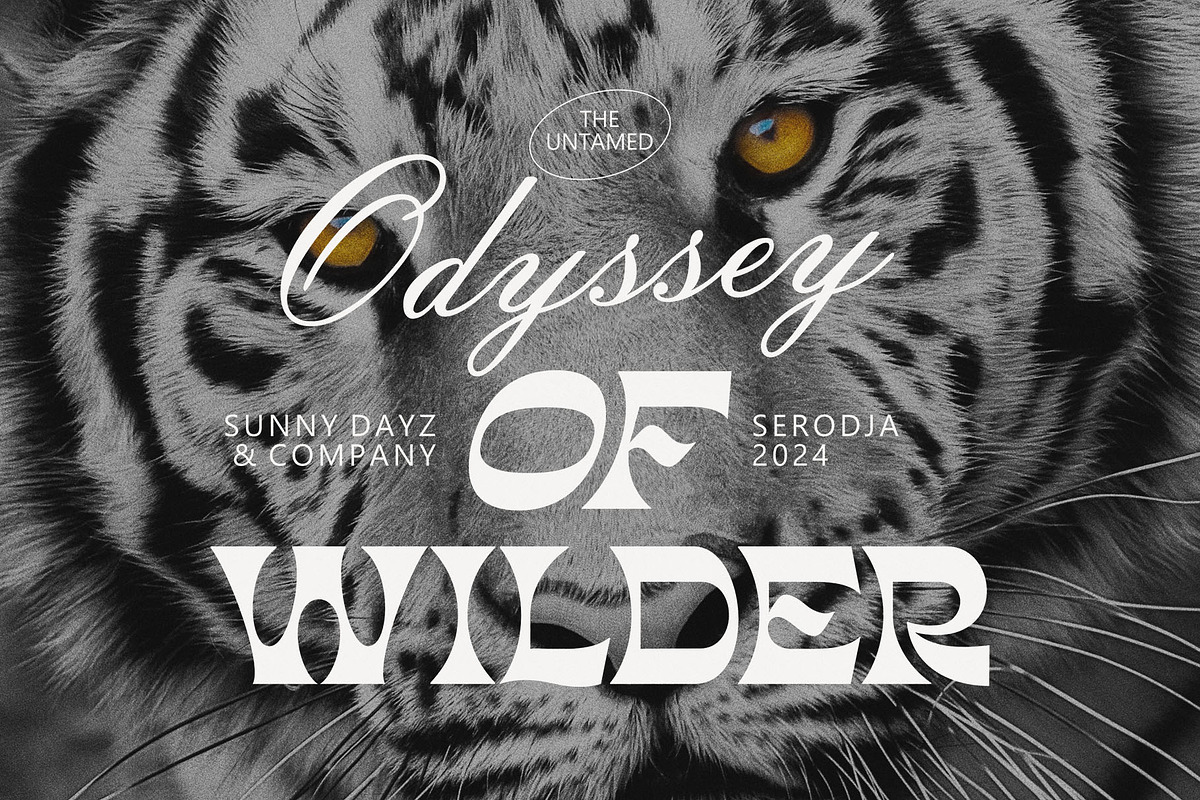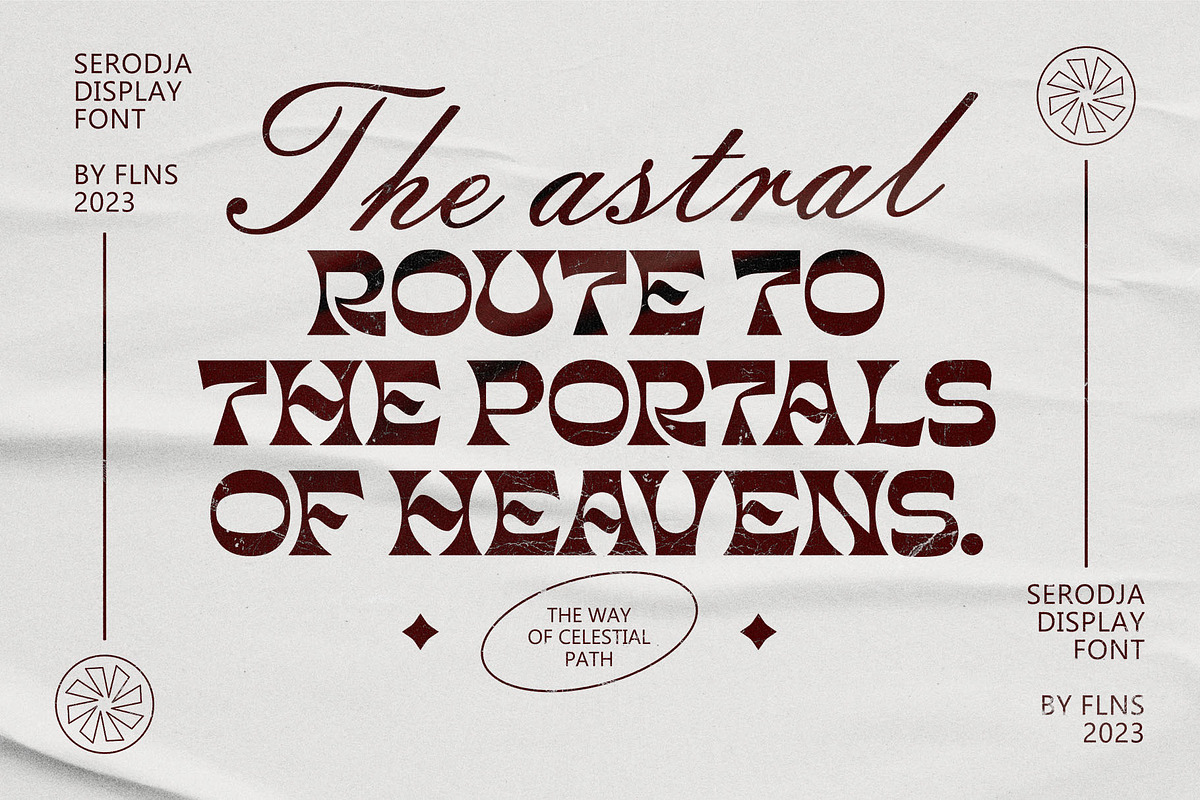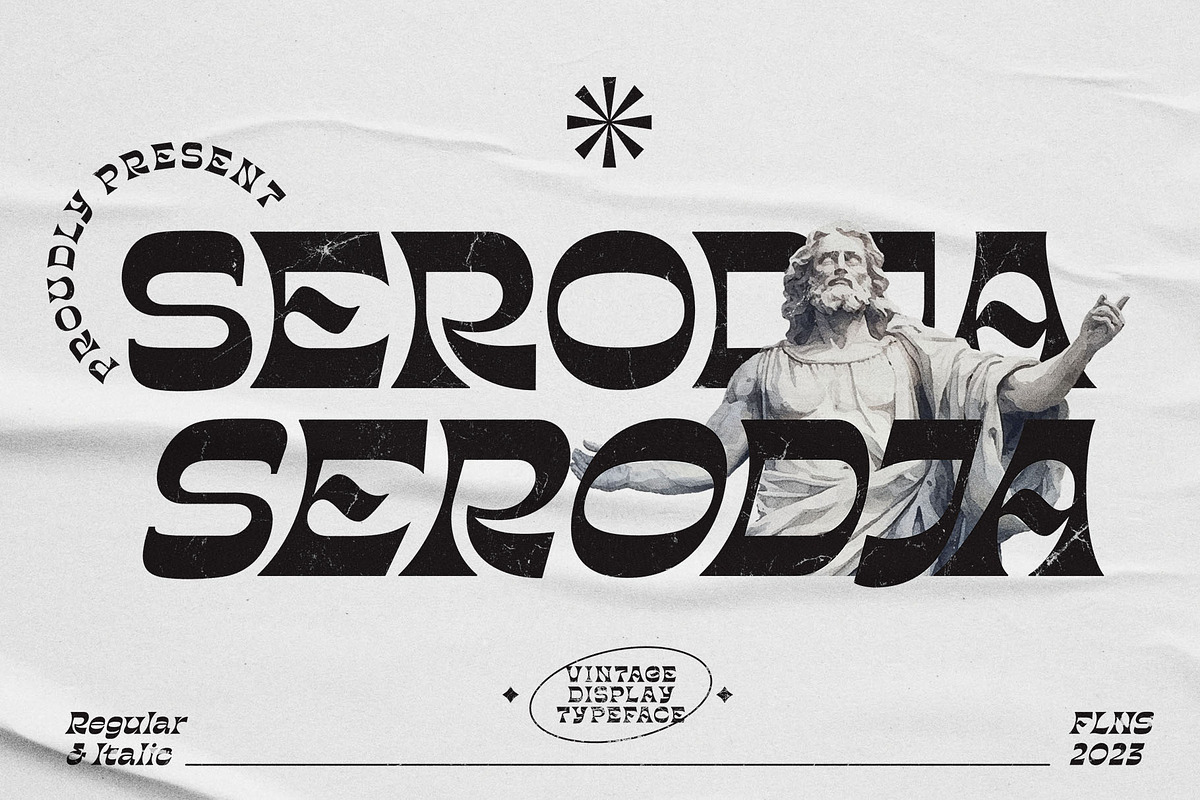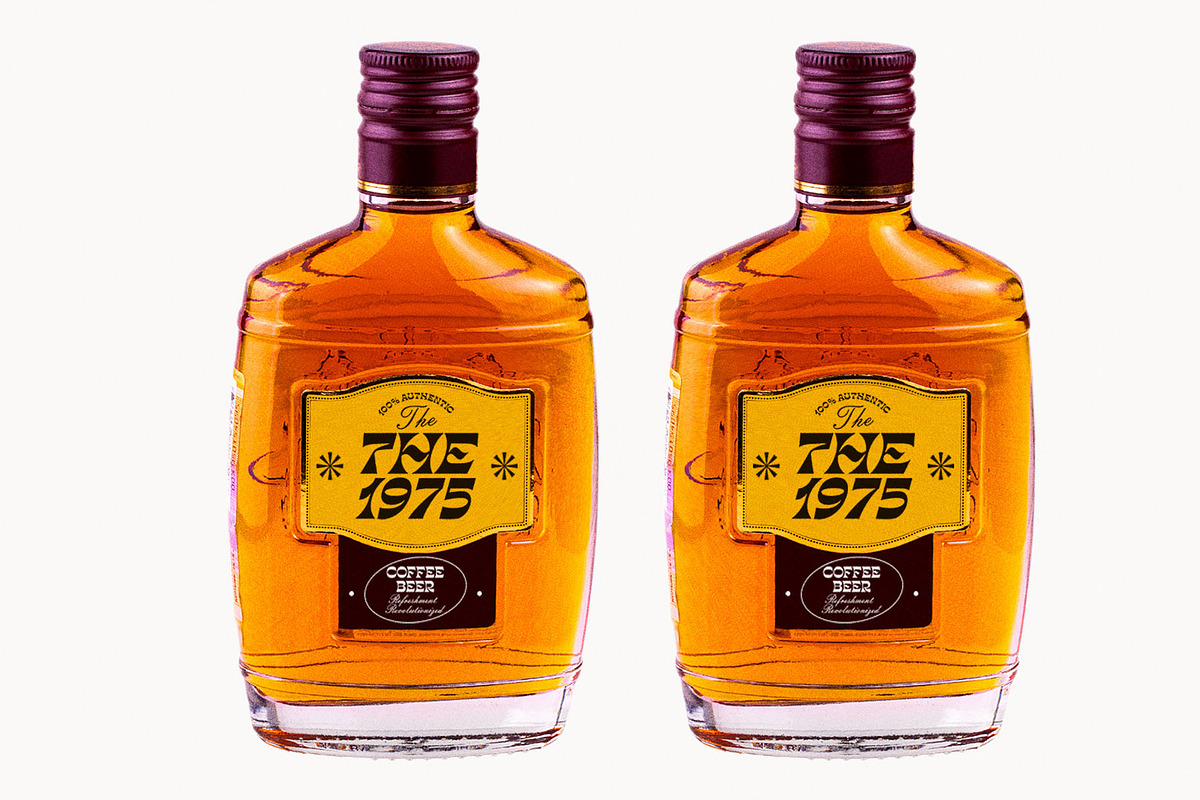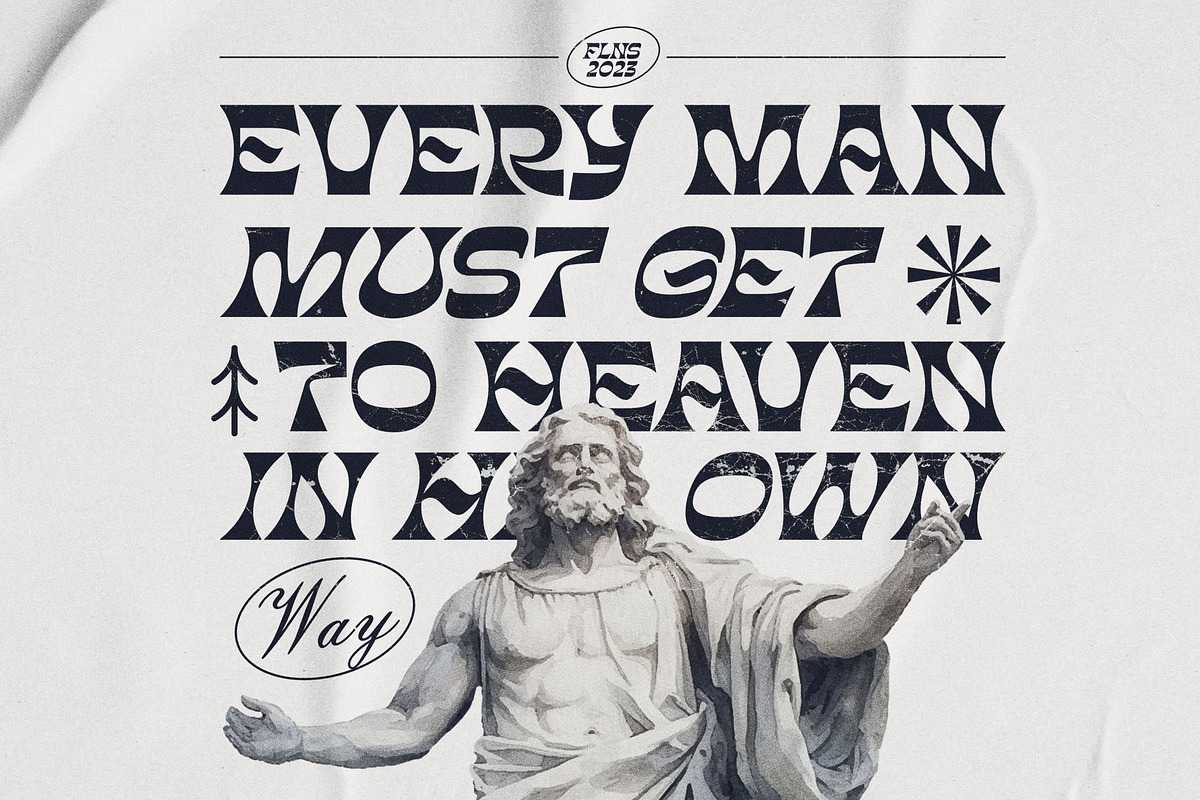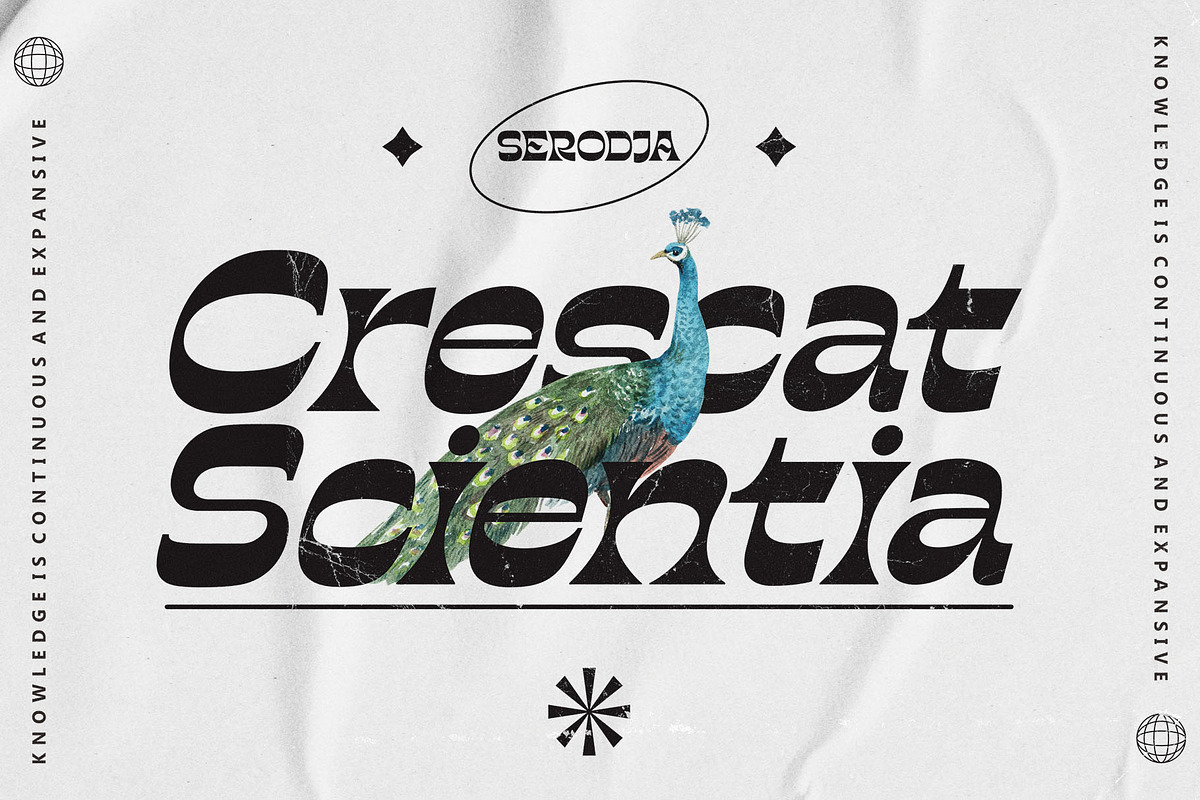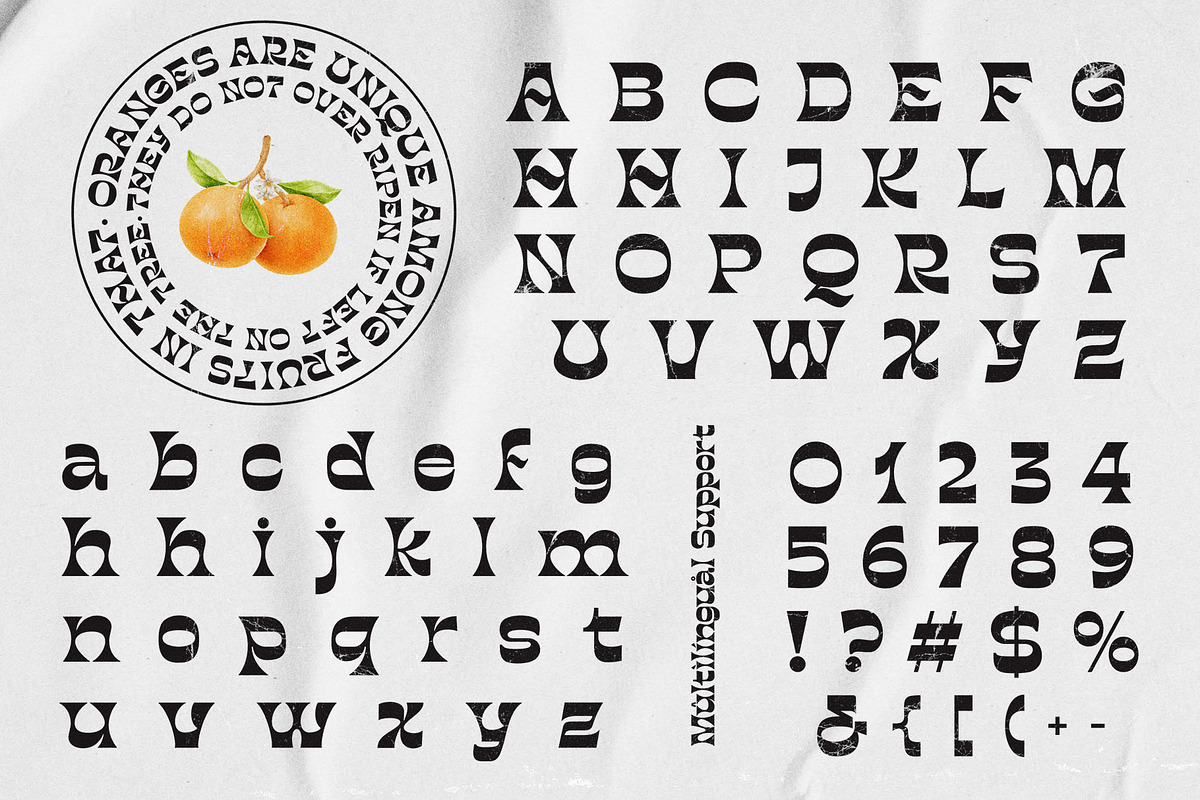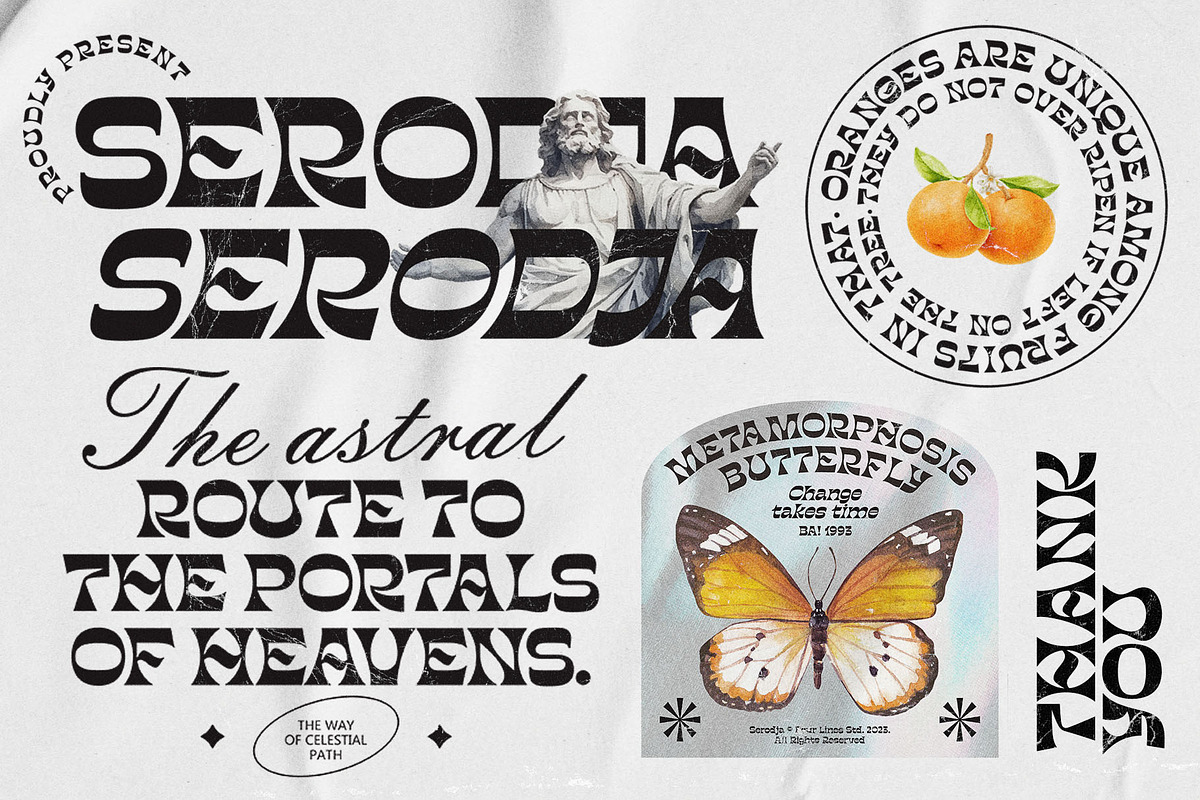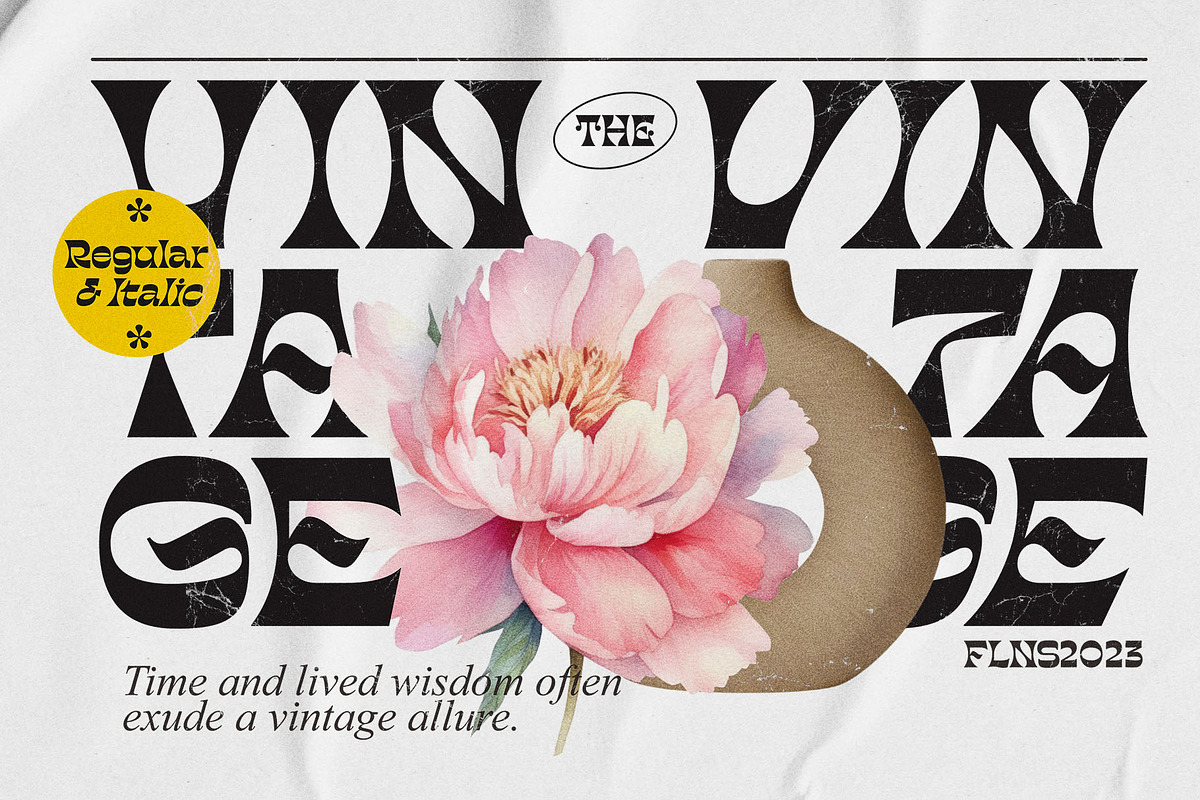
Serodja - Vintage Display Font
Introducing Serodja Typeface – a timeless font with a vintage charm, perfect for capturing the essence of retro-themed designs. This font effortlessly blends elegance and casual simplicity, making it a versatile choice for various creative projects. Whether you're working on invitations, branding, or any project that calls for a hint of vintage flair, Serodja Typeface brings a refined yet approachable aesthetic.